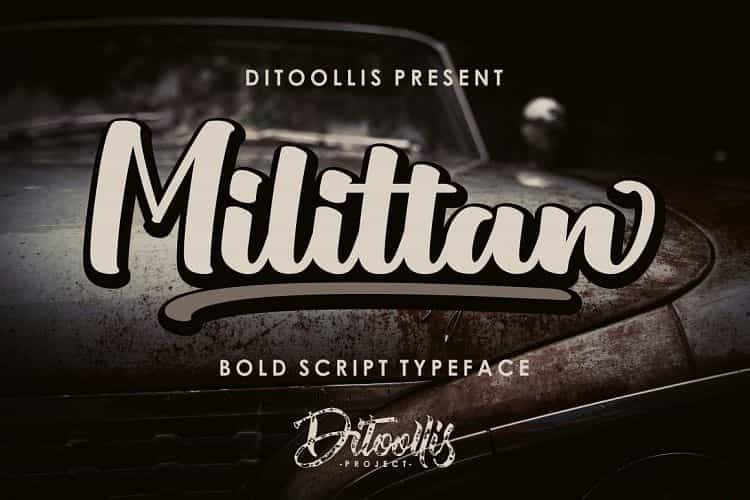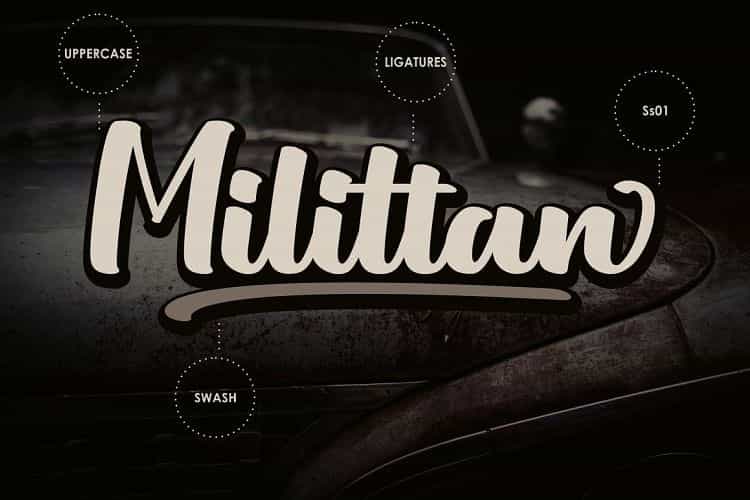
Discover Milittan Font, part of the Brush Calligraphy collection—a versatile and unique font perfect for adding a personal touch to your projects. Download it for free and enjoy crafting designs with style, from invitations to social media posts. This font is available exclusively for personal use, giving you the freedom to create without limits. Unlock your creativity with Milittan Font today!
Presenting My New Handmade Typeface “Milittan” This font is fancy, stylish and minimalist typeface suitable for cool designs.